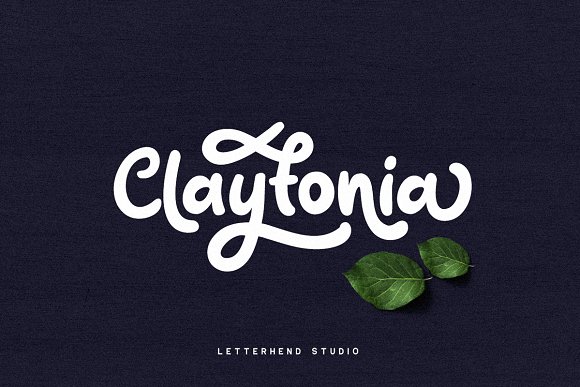
Claytonia Bold Script Font
Perfect for branding, wedding invitations, product packaging, apparel design, posters, and social media graphics.
The Claytonia Bold Script Font excites designers with its confident, flowing brush strokes and handcrafted charm, delivering a bold yet elegant personality to any project.
The Claytonia Bold Script Font is a stylish brush script typeface designed to make text stand out with flair. Its thick, fluid strokes and natural handwritten curves give it an authentic, creative energy, perfect for projects that require a personal and dynamic touch. From boutique branding to eye-catching event posters, Claytonia adds personality in every letter.
One of the key strengths of Claytonia Bold Script Font is its balance between expressiveness and legibility. Even with its artistic brush style, it maintains readability for headlines, logos, and packaging designs, making it both beautiful and functional.
In branding, Claytonia communicates creativity, confidence, and approachability. It pairs well with minimalist backgrounds, earthy tones, and lifestyle imagery, making it a strong choice for fashion, food, and artisan brands.
For digital projects, this font brings life to social media posts, promotional banners, and website headers. Its bold, handcrafted style draws attention instantly, ensuring your message stands out.